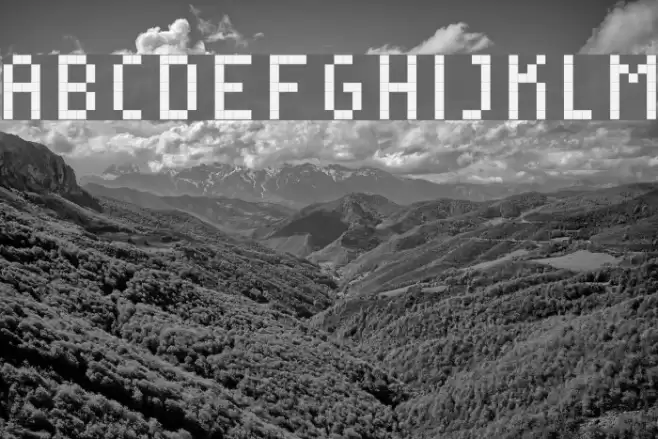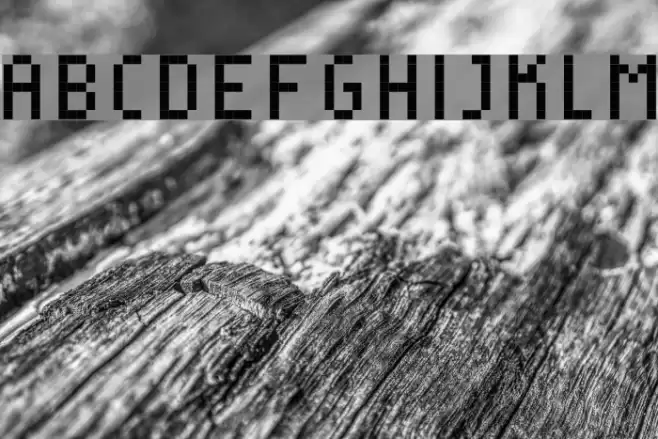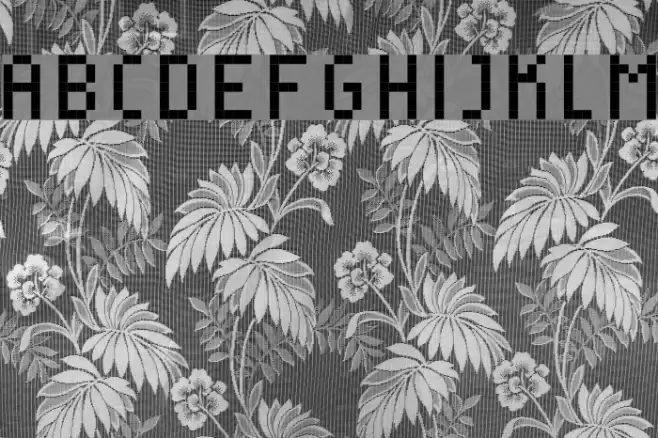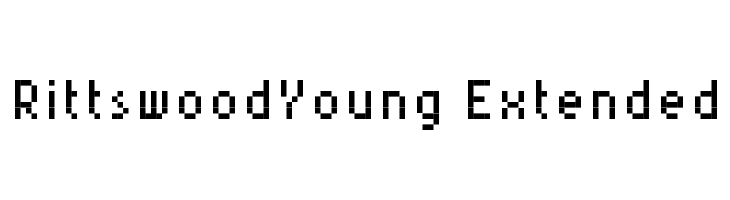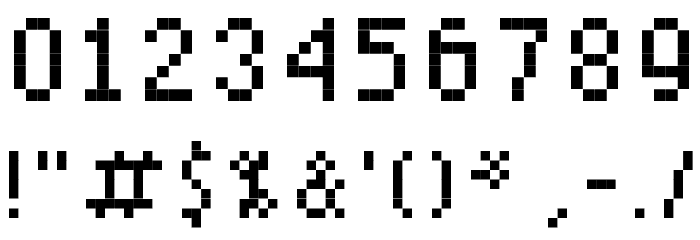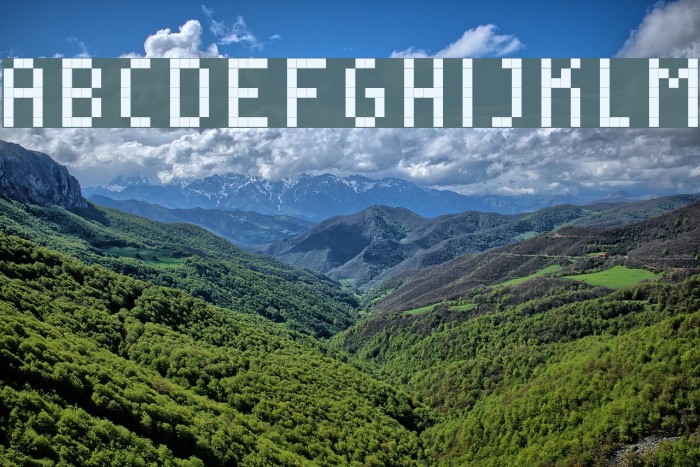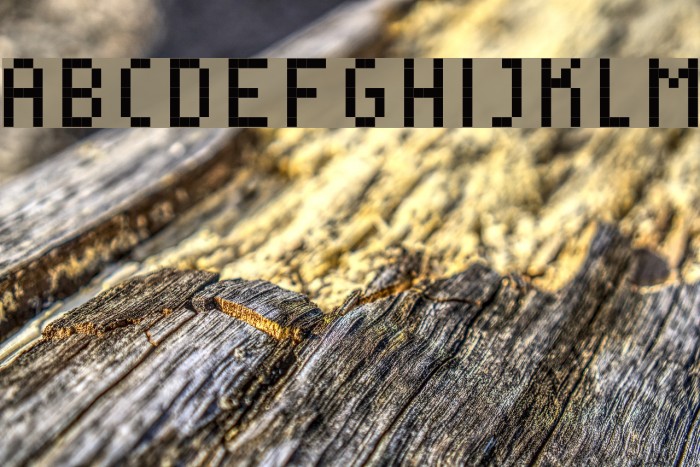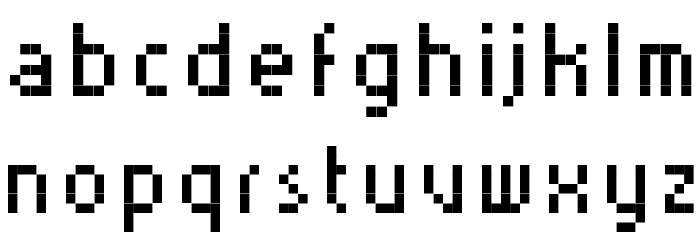
RittswoodYoung Extended Font
RittswoodYoung Extended Description
This font features a pixelated, blocky design reminiscent of early digital displays and retro video games. Each character is constructed with a grid-like precision, giving it a distinctly digital and geometric appearance. The uppercase and lowercase letters maintain a consistent height, contributing to a uniform look across the typeface. The numerals and special characters follow the same pixelated style, ensuring cohesion throughout. This font's unique aesthetic is both nostalgic and modern, making it suitable for projects that aim to capture a retro-futuristic vibe.
A pixelated, blocky font with a retro digital aesthetic from Pixel fonts.
- Proposed Projects: Ideal for video game graphics, retro-themed posters, digital art projects, and tech-related branding.
- Overall Style: Retro, Digital